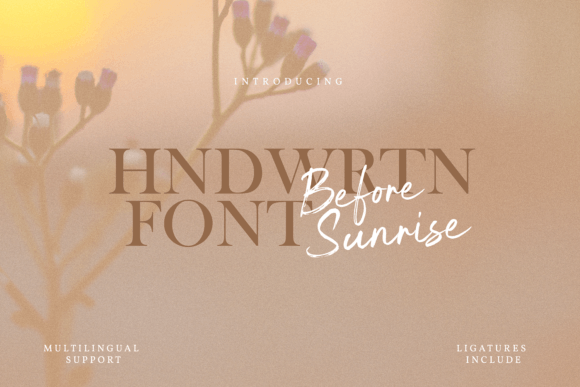
Before Sunrise Font: A Rustic yet Dapper Handwritten Font with a Personal Charm
The world of typography is vast and diverse, with numerous fonts catering to various design needs. Among these, handwritten fonts hold a special place in the hearts of designers and brands alike, as they bring a personal touch and unique character to any project. One such font that has been making waves in the design community is the Before Sunrise font. In this article, we’ll delve into the features, uses, and benefits of the Before Sunrise font, and explore why it’s becoming a favorite among designers.
What is Before Sunrise Font?
Before Sunrise is a rustic, dapper handwritten font that exudes a personal charm. Its quick dry strokes and signature style make it stand out from other fonts in its category. Designed to add a touch of elegance and sophistication to any design project, Before Sunrise is perfect for a wide range of applications, from branding and homeware designs to product packaging and text overlays.
Key Features of Before Sunrise Font
- Rustic yet dapper: Before Sunrise boasts a unique blend of rustic and dapper elements, making it versatile enough to be used in various design contexts.
- Handwritten with a personal charm: The font’s handwritten nature gives it a personal touch that resonates with audiences and adds a human element to designs.
- Quick dry strokes: The font’s strokes are designed to mimic the natural flow of handwriting, giving it an organic and fluid look.
- Signature style: Before Sunrise has a distinct signature style that sets it apart from other handwritten fonts.
Uses of Before Sunrise Font
The versatility of Before Sunrise font makes it suitable for a wide range of design projects. Here are some of the ways you can use this font:
Design Projects that Benefit from Before Sunrise Font
- Branding projects: Establish your brand’s identity with a unique and memorable font that reflects your values and personality.
- Homeware designs: Add a touch of elegance and sophistication to your homeware designs, from kitchen utensils to decorative items.
- Product packaging: Stand out on store shelves with eye-catching packaging that features the Before Sunrise font.
- Text overlays: Use Before Sunrise as a stylish text overlay to add context and personality to any background image.
Benefits of Using Before Sunrise Font
Using the Before Sunrise font in your design projects comes with several benefits:
Why Choose Before Sunrise Font?
- Unique character: The font’s distinctive style ensures that your designs stand out from the crowd.
- Emotional connection: The handwritten nature of Before Sunrise creates an emotional connection with your audience, making your designs more relatable.
- Flexibility: The font’s versatility makes it suitable for various design contexts, from digital to print.
- Ease of use: Before Sunrise is easy to use and pairs well with other fonts, making it a great addition to your font library.
Tips for Using Before Sunrise Font Effectively
To get the most out of Before Sunrise font, here are some tips to keep in mind:
Best Practices for Using Before Sunrise Font
- Pair with complementary fonts: Combine Before Sunrise with other fonts that complement its style to create visual interest.
- Use contrasting colors: Ensure that your text stands out by using contrasting colors that complement the background.
- Experiment with sizes and styles: Play around with different sizes and styles to find the perfect fit for your design.
- Keep it simple: Avoid overusing the font; use it sparingly to maintain its impact.
In conclusion, the Before Sunrise font is a versatile and charming handwritten font that can elevate your design projects to the next level. Its unique blend of rustic and dapper elements, combined with its personal charm, makes it perfect for a wide range of applications. By incorporating Before Sunrise into your font library, you’ll be able to add a touch of elegance and sophistication to your designs, while also creating an emotional connection with your audience.